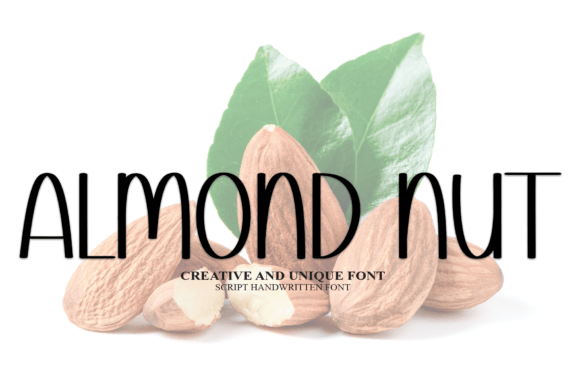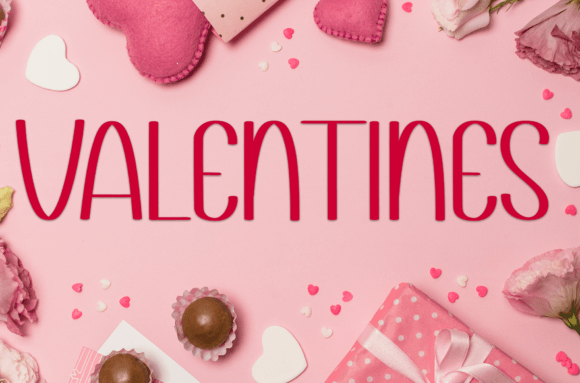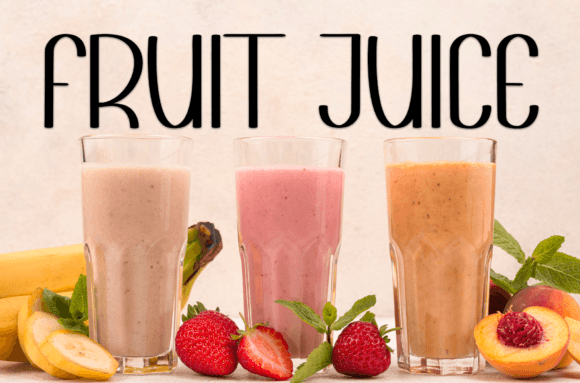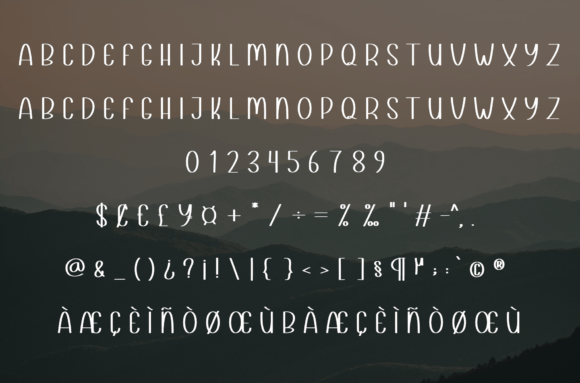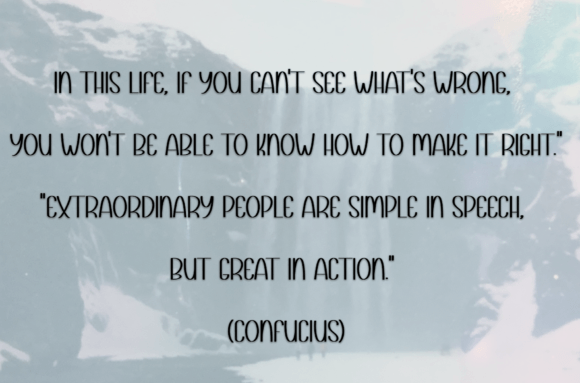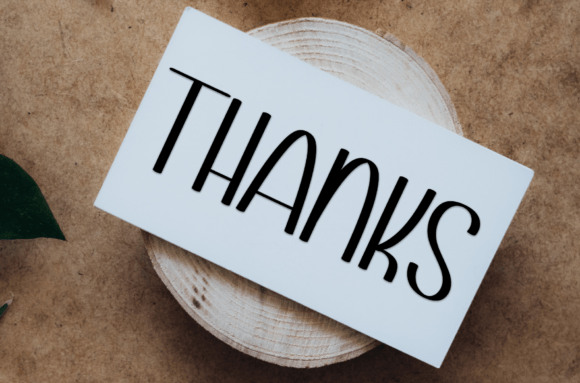
Introducing Handwritten Font: The Sweet and Friendly Choice for Designers and Crafters
Are you looking for a font that can add a personal touch to your designs? Do you want to create wedding invitations, cards, or other materials that exude warmth and friendliness? Look no further than Handwritten Font, a creative and cute handwritten font that’s perfect for designers and crafters alike.
What is Handwritten Font?
Handwritten Font is a beautiful, sweet, and friendly font that’s designed to mimic the look of handwritten text. With its flowing curves and playful strokes, this font is ideal for adding a touch of whimsy and personality to any design. Whether you’re creating wedding invitations, greeting cards, or social media graphics, Handwritten Font is the perfect choice.
Characteristics of Handwritten Font
So, what makes Handwritten Font so special? Here are some of its key characteristics:
- Handwritten look: Handwritten Font has a genuine handwritten look that’s perfect for creating personal and intimate designs.
- Cute and playful: This font is designed to be fun and playful, making it ideal for designs that require a lighthearted touch.
- Creative and versatile: Handwritten Font can be used for a wide range of designs, from wedding invitations to social media graphics.
- Easy to read: Despite its handwritten look, Handwritten Font is easy to read and understand, making it perfect for body text and headings.
Uses of Handwritten Font
So, what can you use Handwritten Font for? Here are some ideas to get you started:
- Wedding invitations: Add a personal touch to your wedding invitations with Handwritten Font.
- Greeting cards: Create beautiful and heartfelt greeting cards for special occasions.
- Social media graphics: Use Handwritten Font to create engaging and playful social media graphics.
- Blog posts: Add a touch of personality to your blog posts with Handwritten Font.
- Branding: Use Handwritten Font to create a unique and memorable brand identity.
Tips for Using Handwritten Font
Here are some tips for using Handwritten Font effectively:
- Use it sparingly: Handwritten Font is best used sparingly, as it can be overwhelming if used excessively.
- Pair it with other fonts: Pair Handwritten Font with other fonts to create visual interest and hierarchy.
- Adjust the size and color: Experiment with different sizes and colors to make Handwritten Font work for your design.
- Use it for headings: Use Handwritten Font for headings and titles to add a touch of personality to your design.
In conclusion, Handwritten Font is a sweet and friendly font that’s perfect for designers and crafters looking to add a personal touch to their designs. With its handwritten look, playful strokes, and versatility, this font is ideal for creating wedding invitations, cards, social media graphics, and more. By following the tips outlined above, you can use Handwritten Font to create beautiful and engaging designs that stand out from the crowd.